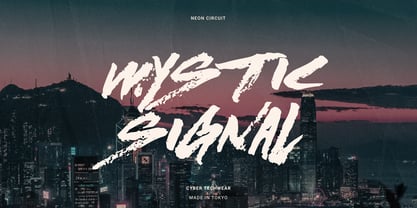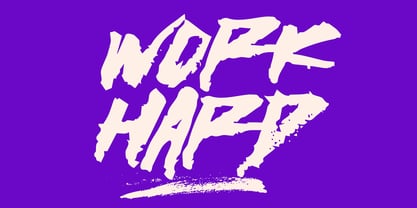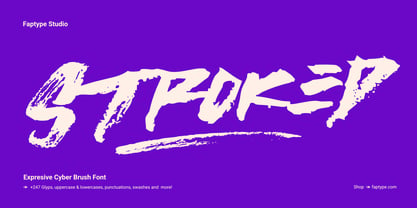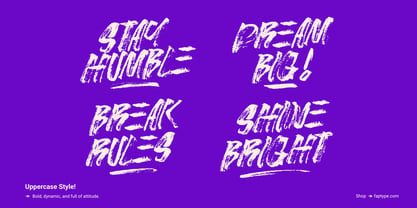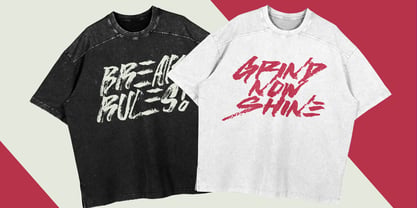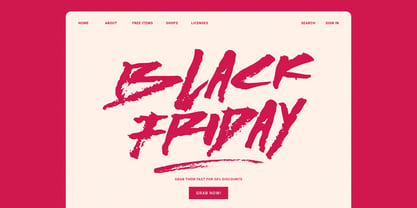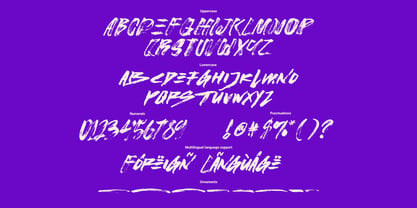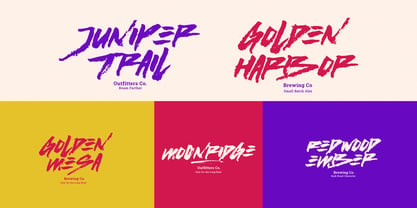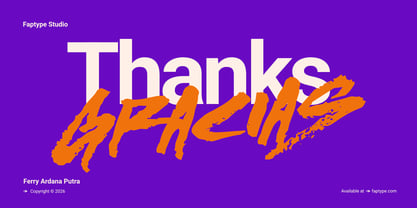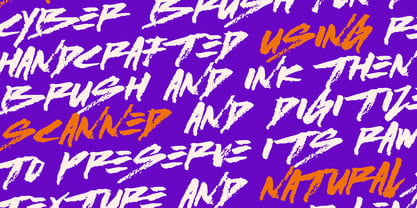
Stroked Brush
by Ferry Ardana Putra
The Stroked Brush Font Family was designed by Ferry Ardana Putra and published by Ferry Ardana Putra. Stroked Brush contains 1 styles. More about this family
Stroked is a powerful cyber brush font created using real brush and ink, then scanned and digitized to preserve its raw texture and natural stroke energy. The result is a bold typeface that blends authentic handmade brush lettering with a modern cyber aesthetic. This cyber brush font captures the imperfect beauty of real ink strokes, including pressure variation, rough edges, and organic brush movement. Every letter maintains the natural character of traditional brush work while delivering a strong futuristic attitude. Because it was created using real brush and ink before being digitized, Stroked carries an authentic handmade texture that feels alive and expressive. The rough brush strokes give the font a dynamic and energetic personality that stands out in modern design. Cyber Brush Font With Authentic Ink Texture Stroked combines raw analog brush strokes with a bold digital style, making it a unique cyber brush font for modern typography. The scanned brush texture preserves the original ink grain and natural brush pressure, creating a powerful visual impact. This font is designed for creators who want typography that feels bold, expressive, and slightly rebellious. Font Features Stroked includes: ✔ Uppercase letters (A–Z) ✔ Lowercase letters (a–z) ✔ Numerals (0–9) ✔ Symbols & punctuation ✔ Several alternate characters The alternate characters help create more dynamic lettering compositions and prevent repetitive typography. Perfect For Stroked is perfect for: ✔ Modern branding ✔ Streetwear and apparel design ✔ Music posters and album covers ✔ Gaming titles and esports branding ✔ Cyberpunk-themed designs ✔ Social media graphics ✔ Merchandise and typography artwork Its bold brush texture makes it especially effective for high-impact display typography. Why Choose Stroked? ✔ Handmade with real brush and ink ✔ Authentic scanned brush texture ✔ Bold and expressive strokes ✔ Futuristic cyber brush aesthetic ✔ Perfect for impactful display design Stroked delivers the raw energy of handmade brush lettering combined with a modern cyber-inspired look. Features of Lust Cyber Font ✔ Uppercase & lowercase letters ✔ Numbers & punctuation ✔ Multilingual support ✔ PUA-encoded characters ✔ OpenType features ✔ 250+ glyphs ✔ Dry brush swashes included
Designers: Ferry Ardana Putra
Foundry: Ferry Ardana Putra
Stroked Brush